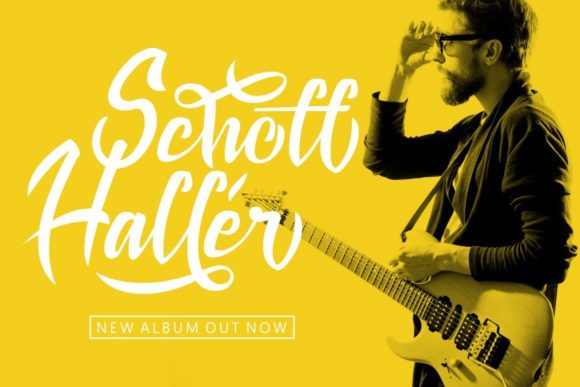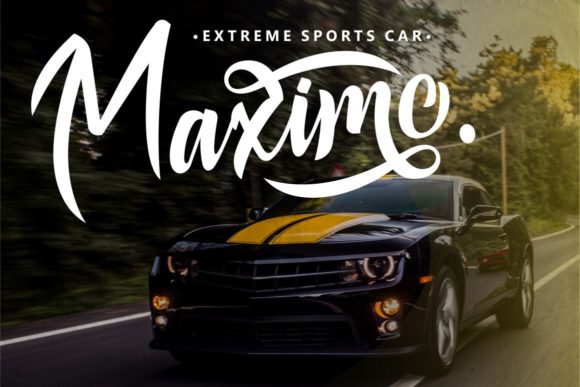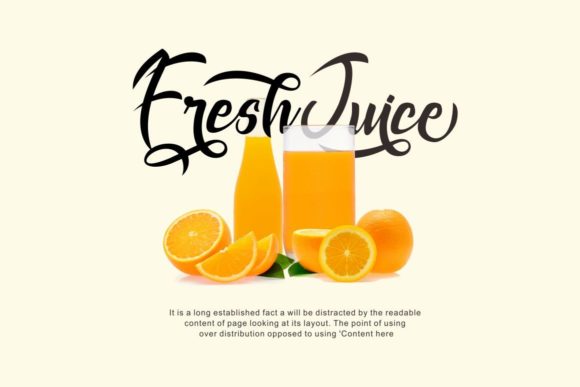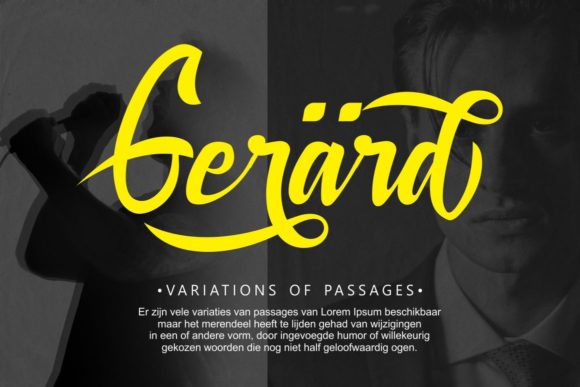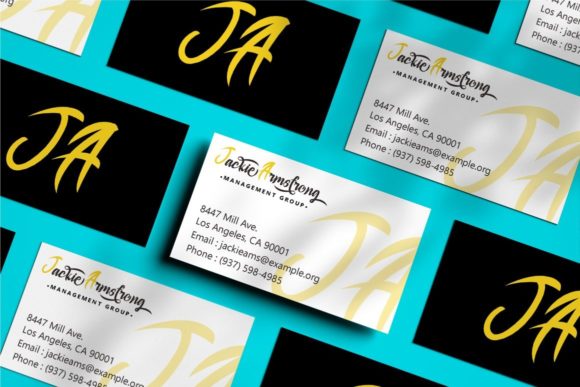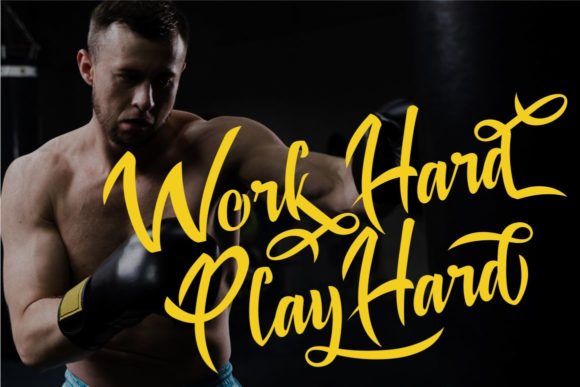
Introduction to Rashard Font Font
Fonts play a crucial role in design, and the Rashard Font font is a typeface that brings both character and versatility to any project. Whether you’re working on a branding project, a website, or a print design, the Rashard Font font offers a unique style that can elevate your work.
Rashard is a natural handwritten brush font.
This font is PUA encoded which means you can access all glyphs and swashes with ease It will add a luxury spark to any design project that you wish to create.
Key Features of Rashard Font Font
Why Choose Rashard Font Font?
The Rashard Font font is more than just a typeface – it’s a design tool that helps you communicate your message with style and clarity. Its unique character set and versatile design make it suitable for a wide range of applications, from elegant invitations to bold headlines.
With its carefully crafted letterforms and balanced proportions, the Rashard Font font ensures readability and visual appeal across all mediums.
What makes Rashard Font font special?
The Rashard Font font stands out with its unique design, exceptional readability, and versatility across various design applications.